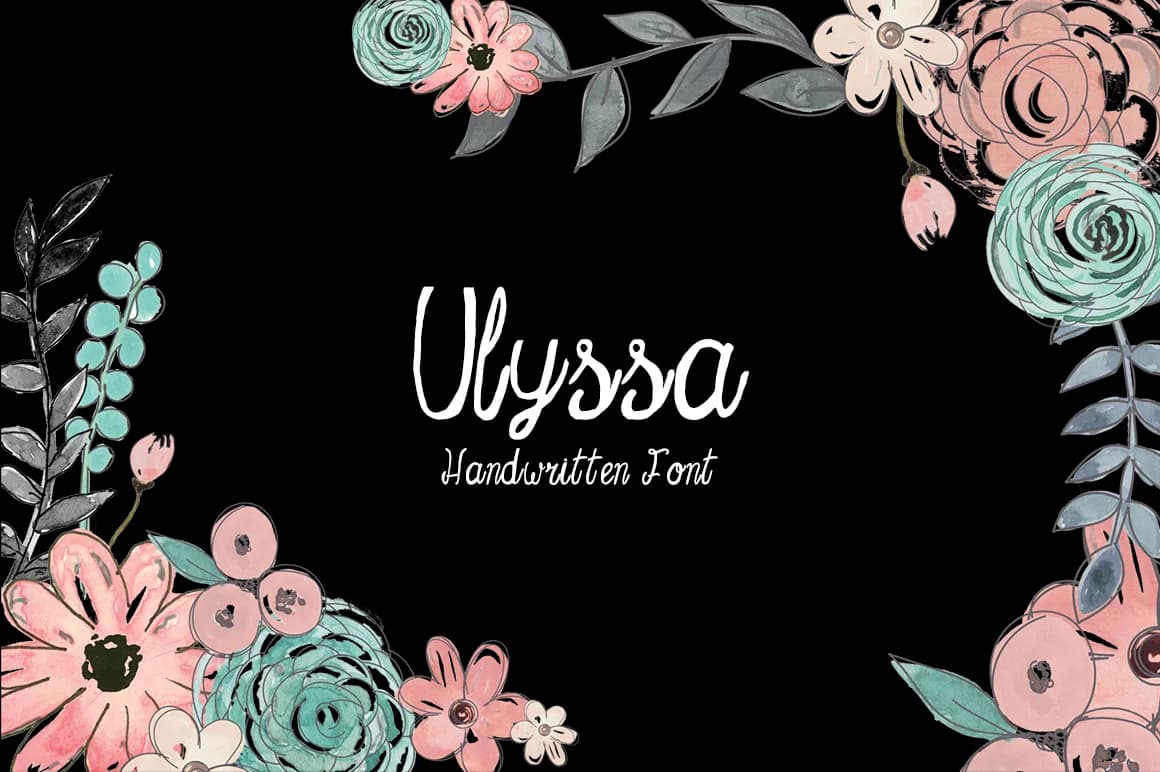
Ulyssa by creativetacos is a contemporary handwritten script that blends fluid letterforms with modern sensibilities. The font's organic rhythm makes it equally compelling as a focal point or supporting typeface, lending itself naturally to designs that prioritize personality and authenticity over rigid geometric precision.
This script excels in creating memorable visual impacts across wedding invitation suites, where its flowing lines convey elegance and intimacy to guests. It's equally well-suited for event program covers, personalized greeting card designs, and hand-lettered brand identities seeking a distinctly human touch. The naturally varied forms that emerge from the handwritten style give each application a unique quality that mass-produced typefaces struggle to replicate. Beyond formal occasions, Ulyssa works beautifully for boutique packaging labels, social media graphics with personality, and any project where authenticity matters.
Ulyssa's versatility stems from its careful balance between artistic expression and practical readability across different scales and contexts. Whether you're layering it with complementary typefaces or allowing it to command the design space independently, the script maintains its distinctive character without becoming overwhelming or difficult to parse. The flowing letterforms encourage viewers to linger on your message, making it an excellent choice when visual interest and engagement are priorities. Find Ulyssa on Creative Fabrica to bring authentic handwritten elegance to your next project.
Ulyssa Font is a script font that shines as a display or heading face. Pair it with a clean sans-serif or serif font for body text β the contrast creates a clear hierarchy while the two styles stay balanced and easy to read.